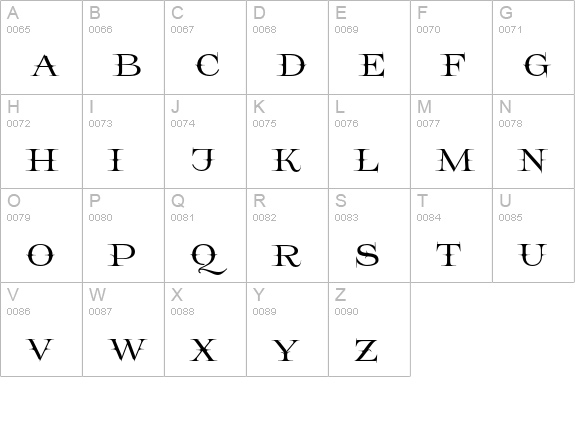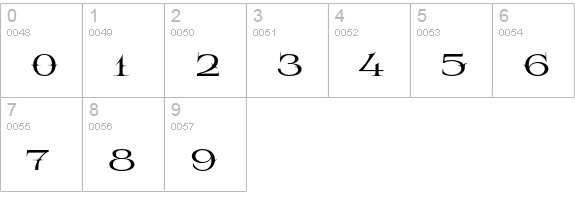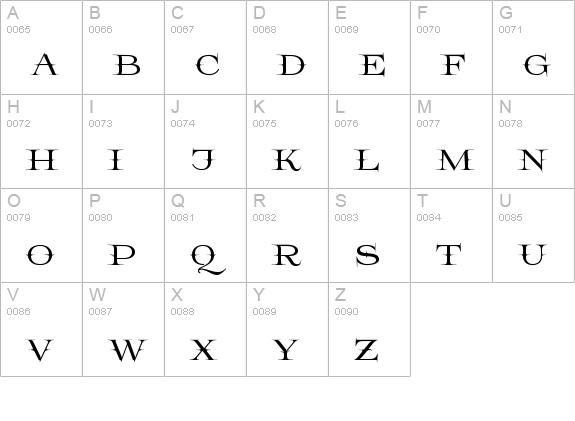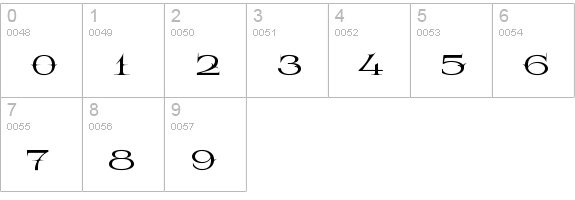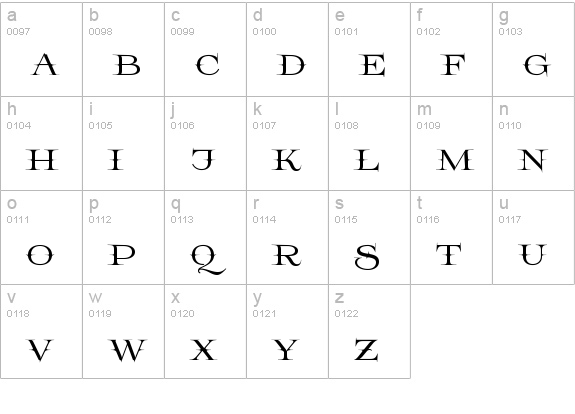
Prida65 Font Details
Introducing Prida65, an exquisite font that effortlessly combines elegance with a touch of modernity. This font is the perfect choice for those seeking a versatile typeface that can be used for various design projects, from branding to editorial layouts. With its clean lines and graceful curves, Prida65 exudes a sense of sophistication and professionalism. Its balanced proportions and legibility make it suitable for both headings and body text, ensuring readability across different mediums. One of the most remarkable aspects of Prida65 is that it is freely available to download at FontsMarket.com. This means that designers and creatives can easily access this font and incorporate it into their projects without any cost. The fact that it is free does not compromise its quality or versatility; in fact, it only adds to its appeal and accessibility. Whether you are working on a logo design, a website layout, or a print advertisement, Prida65 will undoubtedly elevate your project to new heights. Its timeless aesthetic and attention to detail make it a standout choice in the vast world of typography. Discover the beauty and versatility of Prida65 today by downloading it for free at FontsMarket.com. Start creating stunning designs that captivate and communicate your message effortlessly. Let Prida65 be your go-to font for all your design endeavors, and experience the freedom of expression that this font brings to your creative journey.